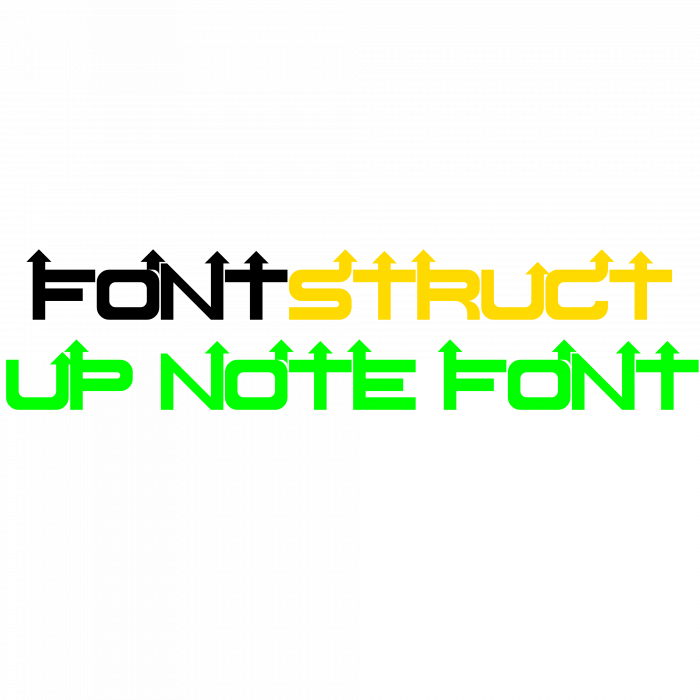
Rules & Guidelines:
1) All FontStruct users may participate in FontOut, and can do so with a maximum of 10 entries each.
2) An entry in a FontOut is a picture or image on a specific FontStruct forum. It can also be a public font. There are no limits on license.
3) The font must be tagged with "FontOut#" where '#' stands in for the specific number of the FontOut.
4) Every two weeks, a FontOut will be announced and participants can publish fonts or images within that two-week time period.
This FontOut:
(19th August 2012)
Handwriting! Write a letter or word that looks like it was made by hand. It can be graffiti, brush script, comic book style, etc. See how non-modular you can make it look!
The last time you can upload a sample is 26th August 2012. Voting starts on that date.
Let's see what our FontStruct community can do!
~~I just took a shot at it. I think this is right~~
Big "a"
My gosh, tomorrow is last day for this fontout and we were so few to participate. Topic was very interesting yet!
I'm still working on my entry, will try to get it done before deadline.
Remember 'saratogajean', one of the most popular handwritten FontStructions?
Here it is.
p2pnut's 'RMWL Unicalic' goes modern in a FontOut
@FontBlast // I don't think you should use others' fonts in a FontOut
Get your last entries in now! FontOut7 voting starts today, and ends 2 September 2012.
A lot of these entries don't appear to have followed the rules of appearing to be Handwritten, Graffiti, Brush Script or Comic Book. In fact I can only see one that fits the brief fully.
This is an example of Handwritten.
@djnippa // the FontOut does not say that you have to do those categories:
This FontOut:
(19th August 2012)
Handwriting! Write a letter or word that looks like it was made by hand. It can be graffiti, brush script, comic book style, etc. See how non-modular you can make it look!
It just has to be a word that looks as if it were written by hand. And what's wrong with a little creative interpretation?
I read the brief, and in my opinion, only one entry fits your description. It seems that everyone is just doing what they please, and misinterpreted the brief, rather than using a 'little' creative interpretation.
@djnippa // That may be true, but the topic is handwritten, which is hard do do modularly unless you're on a large grid. And I see plenty of good ones, like elmoyenique's or four's. Even AFT's shows a certain air of handmadeness.
I agree that not all entries really fit the handwriting category, but I guess we can vote accordingly. Easier theme for next time - I'll skip this one.
@demonics: Thanks to have underlined the "handmadeness" quality of these works, even if they defy classic typographic categories, because my approach is definitely not a designer one.
My voting:
1. demonics
2. Isaiah Garcia's 1st